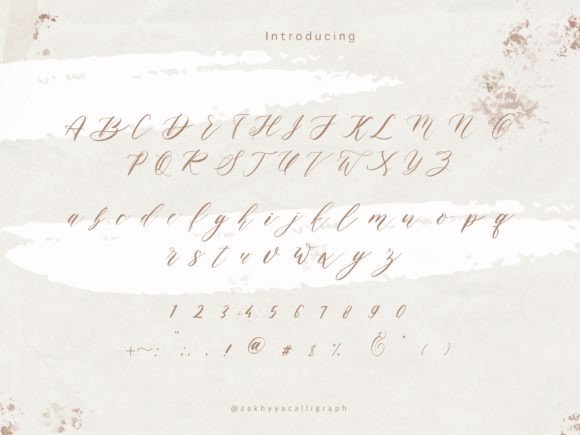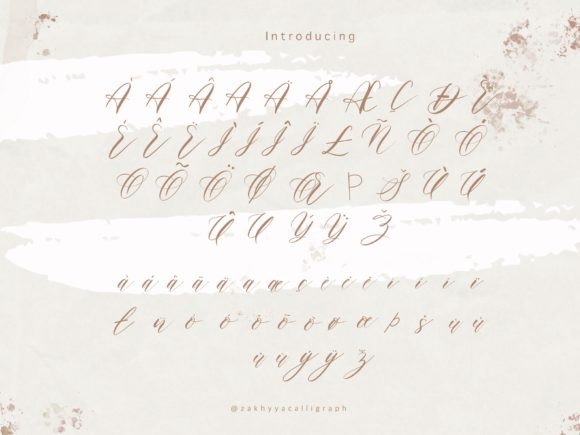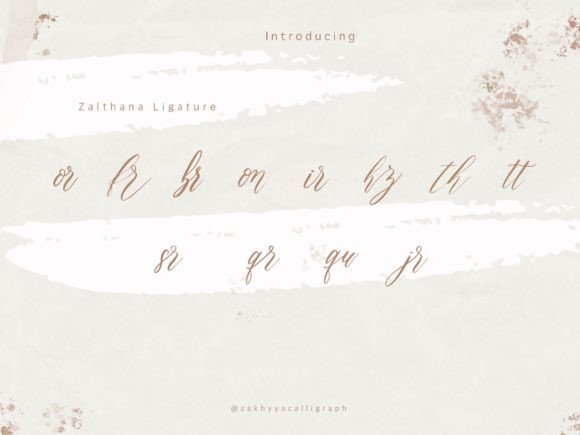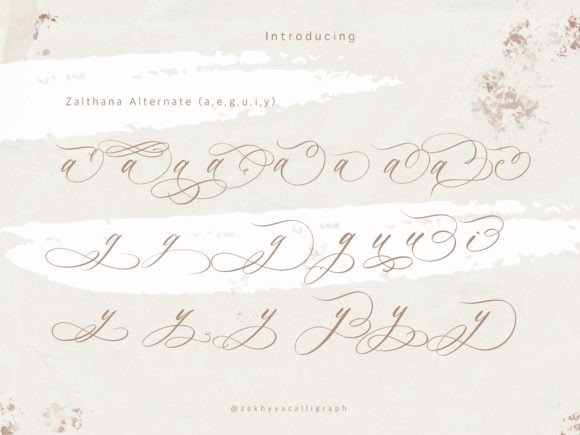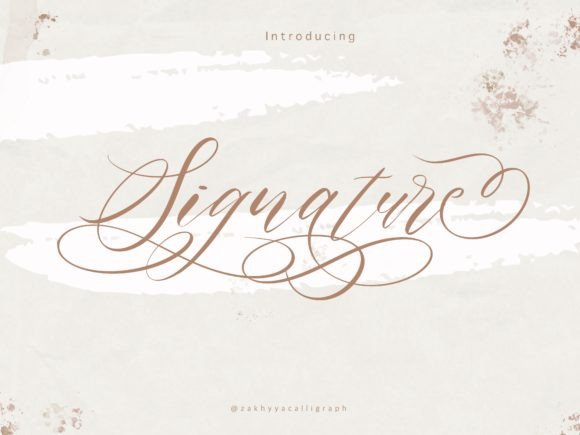
Zalthana Font
Zalthana Handwritten Font – Charming and Elegant Typeface
The Zalthana Handwritten Font is a beautifully designed typeface that brings elegance and charm to any project. With its flowing handwritten style and graceful strokes, it creates a refined look suitable for both personal and professional uses. Whether you’re designing wedding invitations, greeting cards, or logos, this font adds a timeless handwritten touch to your work.
A Handwritten Font with Classic Appeal
The Zalthana Handwritten Font captures the natural beauty of calligraphy while maintaining modern readability. Its carefully crafted curves and balanced letterforms ensure that it stands out in both print and digital projects. Designers appreciate its ability to bring elegance and warmth into any design without sacrificing clarity.
Perfect for Invitations and Stationery
One of the most popular uses for this typeface is in invitations and stationery. The Zalthana Handwritten Font works beautifully for wedding cards, thank-you notes, and personalized stationery. It also enhances business cards, quotes, and promotional materials by adding sophistication and style.
PUA Encoding for Full Creative Access
A key feature of the Zalthana Handwritten Font is its PUA encoding. This allows you to access all ligatures, glyphs, and swashes without requiring advanced design software. With these options, you can add decorative flourishes and unique touches to make your designs truly stand out.
Why Designers Love Zalthana Font
Designers love fonts that combine beauty with versatility, and the Zalthana Handwritten Font does exactly that. Its charming handwritten strokes make it perfect for romantic projects, while its clarity ensures it works equally well in professional branding and logos.
In summary, the Zalthana HandwrittenFont is a charming, elegant, and versatile typeface. With its handwritten flow, PUA encoding, and easy installation, it is perfect for invitations, cards, logos, and branding. Don’t miss the chance to download Zalthana HandwrittenFont and elevate your designs with timeless handwritten beauty.